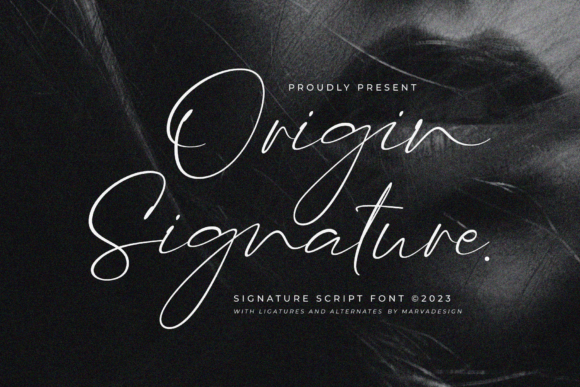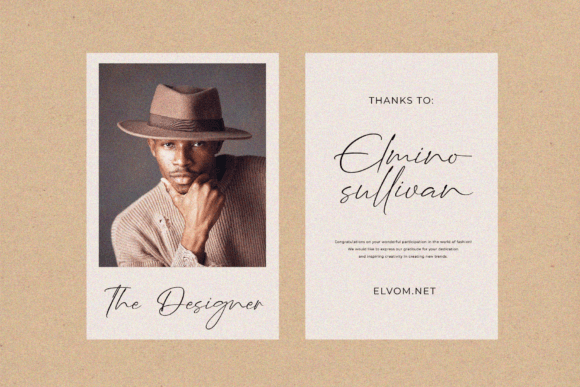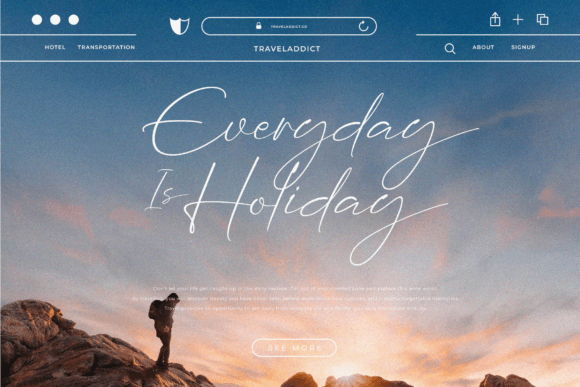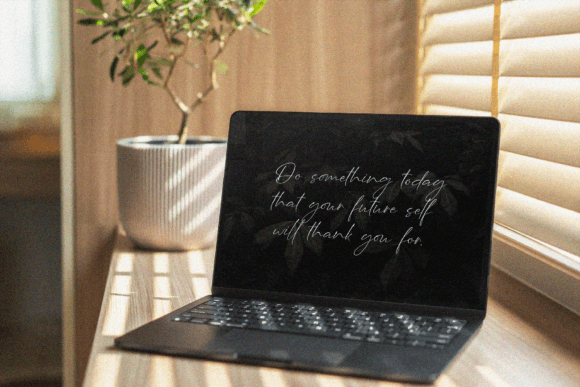
Origin Signature Font
About the Origin Signature Font
Experience the unique personality of Origin Signature Font, a font designed for impact. Origin Signature is a stylish script font that mimics elegant handwriting. It’s designed to look smooth and flowing, making it perfect for fancy invitations, logos, or any project that needs a touch of sophistication and class.
Origin Signature excels in applications requiring a touch of refined elegance. It’s ideal for headlines, logos, short quotes, and high-end branding projects where sophistication is key. Consider it for wedding invitations, boutique packaging, or stylish social media graphics. However, its flowing nature makes it less suitable for body text or UI elements where readability is paramount; long paragraphs set in Origin Signature would be difficult to read.
Pairing Origin Signature effectively requires consideration of its inherent elegance. A clean sans-serif like Montserrat or a modern geometric font such as Futura would create a striking contrast, grounding the script’s fluidity. For a warmer feel, a classic serif like Garamond or a more playful, yet still sophisticated, script like Great Vibes could work well.
The font projects a sophisticated, slightly romantic personality, best suited for brands and projects aiming for a premium or high-end aesthetic. Avoid using it where a bold, modern, or informal feel is desired.
Origin Signature Font Usage Examples
Origin Signature Font Example